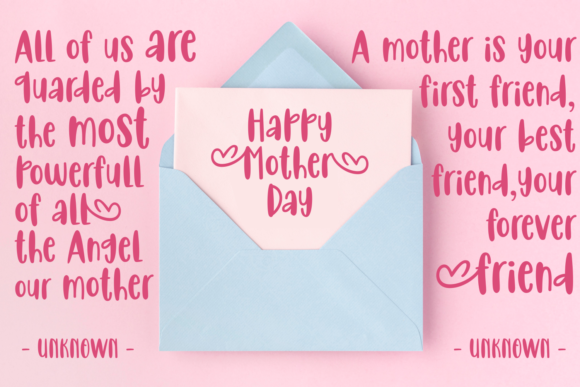
Riverside Story Font
Riverside Story is a cute and whimsical display font, featuring a lovely style. No matter the topic, this font will be an incredibly asset to your fonts’ library, as it has the potential to elevate any creation.